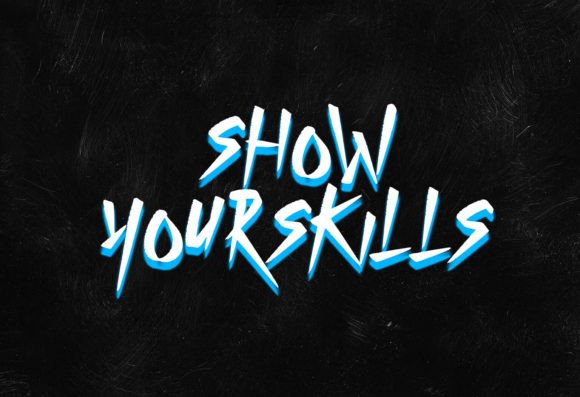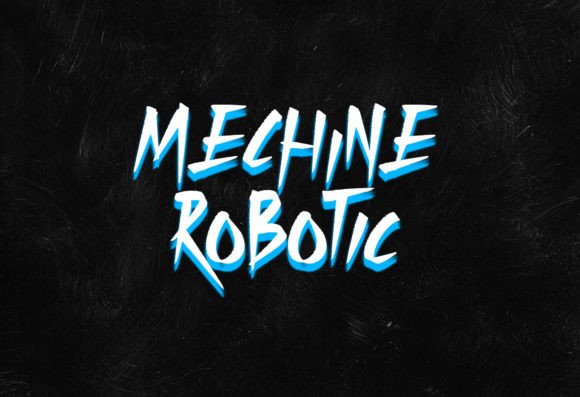
Cyberpunky Font Font – Free Download
Introduction to Cyberpunky Font Font
Fonts play a crucial role in design, and the Cyberpunky Font font is a typeface that brings both character and versatility to any project. Whether you’re working on a branding project, a website, or a print design, the Cyberpunky Font font offers a unique style that can elevate your work.
Cyberpunky and futuristic fonts are characterized by their sleek and avant-garde design, embodying the cutting-edge aesthetics of technology and a dystopian, high-tech future.
These fonts often feature sharp, angular lines, geometric shapes, and a minimalistic yet bold appearance The letterforms are meticulously crafted to convey a sense of modernity, innovation, and a digital, high-tech atmosphere.
Key Features of Cyberpunky Font Font
Why Choose Cyberpunky Font Font?
The Cyberpunky Font font is more than just a typeface – it’s a design tool that helps you communicate your message with style and clarity. Its unique character set and versatile design make it suitable for a wide range of applications, from elegant invitations to bold headlines.
With its carefully crafted letterforms and balanced proportions, the Cyberpunky Font font ensures readability and visual appeal across all mediums.
What makes Cyberpunky Font font special?
The Cyberpunky Font font stands out with its unique design, exceptional readability, and versatility across various design applications.